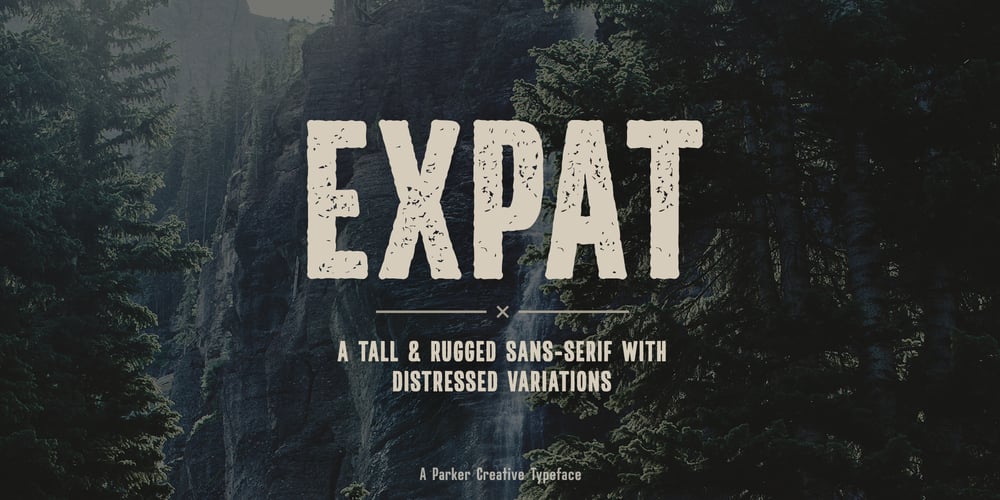
Expat Font Family was designed by Alan Parker and published by Parker Creative. Expat contains 4 styles and family package options. Expat was designed to be used to make exciting promotional material for most industries. With its rugged and thick narrow body, Expat appears heavy to the eye and draws the eye, which is great for big headlines.Some examples of great uses of the typeface include high energy content seen in sports and apparel advertising, rustic and trendy restaurant materials, even event promotions for concerts or holidays like Independence Day and Oktoberfest.